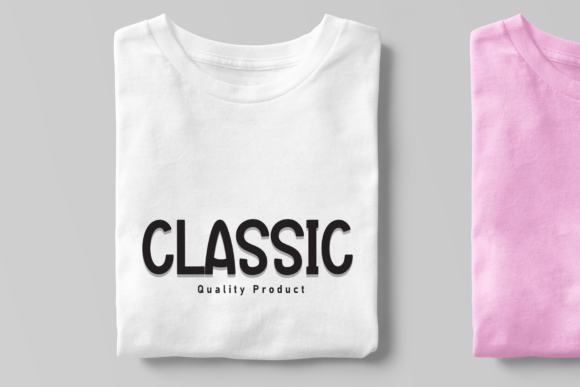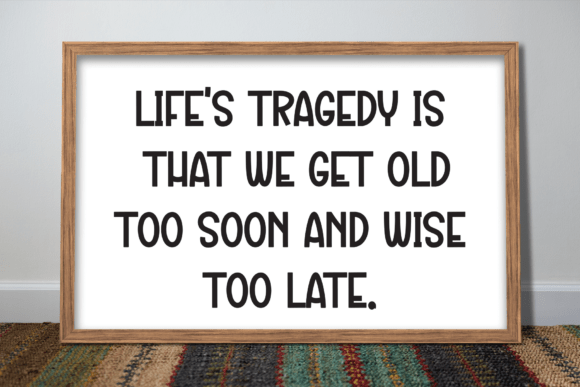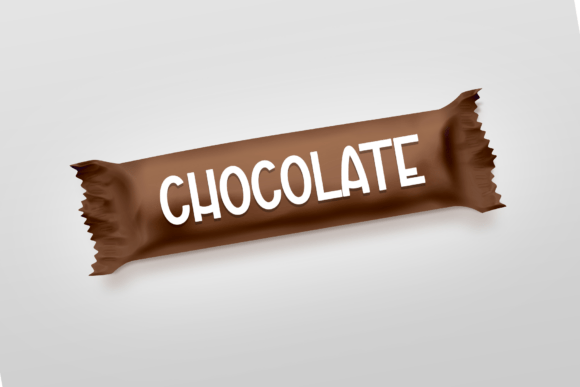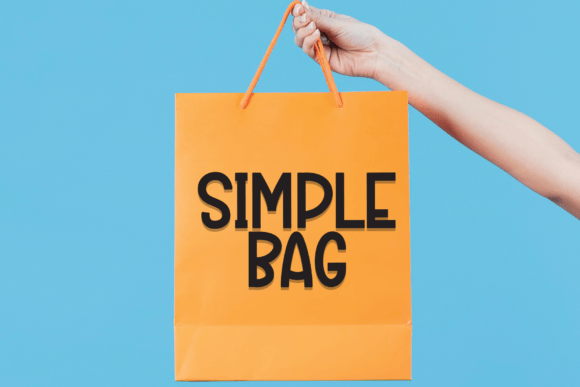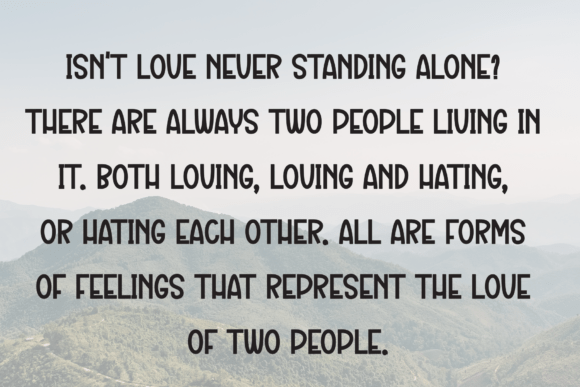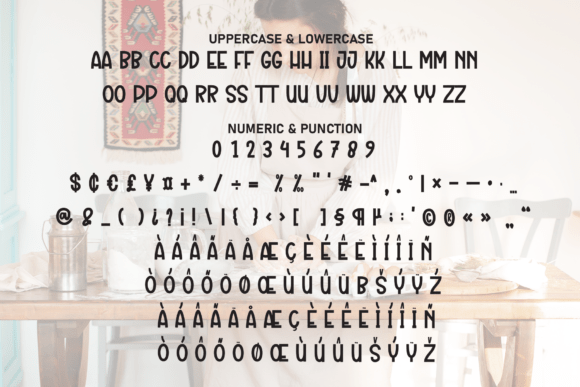
Introducing the Farmhouse Designer Font: Adding a Personal Touch to Your Designs
In the world of digital design, fonts play a crucial role in conveying the tone and personality of a brand or project. For those seeking a font that exudes warmth, charm, and a personal touch, the Farmhouse Designer Font is an excellent choice. This handwritten display font is designed to bring character and authenticity to every letter, making it perfect for a wide range of applications, from quotes and greeting cards to branding and logo design.
Handwritten fonts have a unique ability to add a personal and heartfelt touch to any design. They evoke a sense of nostalgia and warmth, reminiscent of handwritten letters and notes. The Farmhouse Designer Font takes this charm to the next level with its playful strokes and casual flow, making it feel like it was written just for you.
Key Features of the Farmhouse Designer Font
- Playful Strokes: The font features playful strokes that give it a lively and energetic feel.
- Casual Flow: The casual flow of the font makes it feel authentic and handwritten.
- Perfect for Quotes and Greeting Cards: The font is ideal for quotes, greeting cards, and other applications where a personal touch is desired.
- Branding and Logo Design: The font is also suitable for branding and logo design, adding a touch of warmth and whimsy to your work.
Why Choose the Farmhouse Designer Font?
So, why choose the Farmhouse Designer Font over other fonts? Here are a few reasons:
- Unique Character: The font has a unique character that sets it apart from other fonts.
- Versatility: The font is versatile and can be used for a wide range of applications.
- Easy to Read: The font is easy to read, making it perfect for body text and headlines.
- Customizable: The font can be customized to fit your specific needs.
Using the Farmhouse Designer Font for Kids
The Farmhouse Designer Font is also perfect for designs aimed at kids. Its playful and whimsical nature makes it an excellent choice for:
- Kids’ Party Invitations: Create custom party invitations that are sure to delight kids and parents alike.
- Children’s Book Titles: Use the font to create eye-catching titles for children’s books.
- Kids’ Branding: Use the font to create a brand identity for kids’ products or services.
Tips for Using the Farmhouse Designer Font
Here are a few tips for using the Farmhouse Designer Font:
- Pair with Other Fonts: Pair the font with other fonts to create a unique and visually appealing combination.
- Use for Headlines and Body Text: Use the font for both headlines and body text to create a cohesive look.
In conclusion, the Farmhouse Designer Font is a versatile and charming font that can add a personal touch to any design. Its playful strokes and casual flow make it perfect for a wide range of applications, from quotes and greeting cards to branding and logo design. Whether you’re a designer, crafter, or DIY enthusiast, this font is sure to become a favorite in your collection.